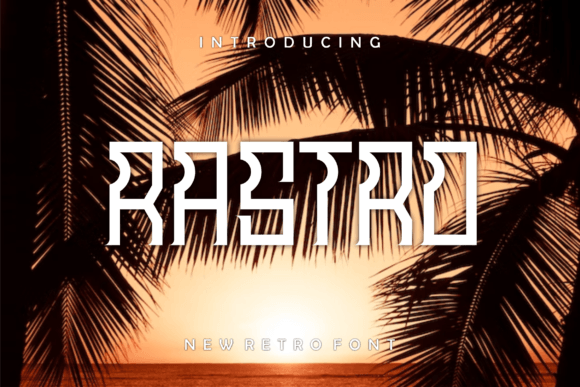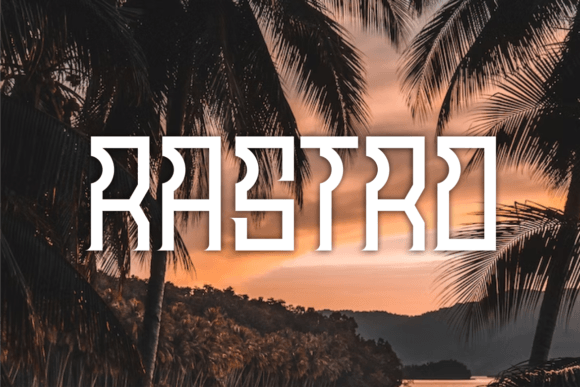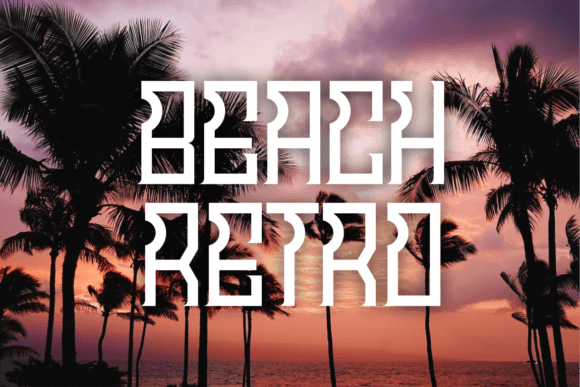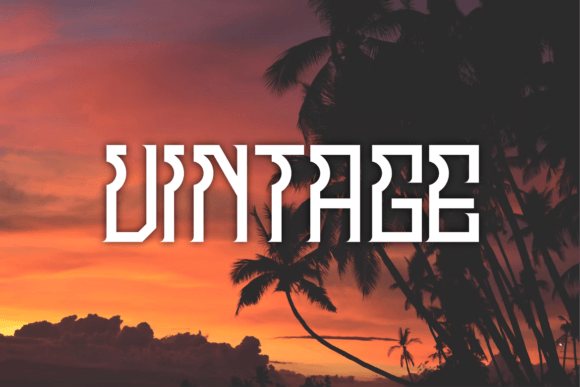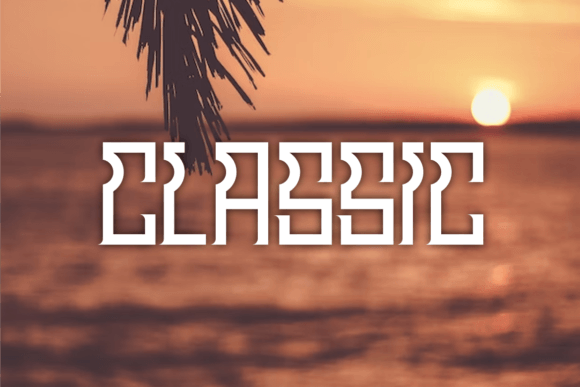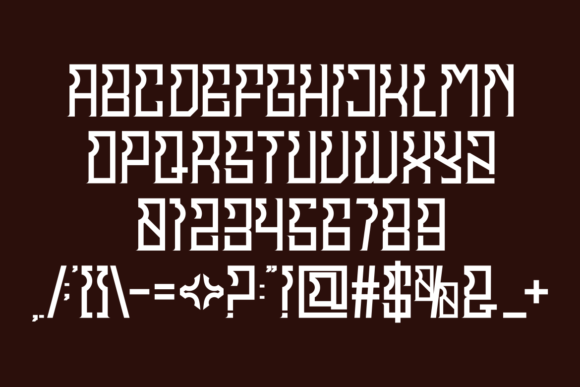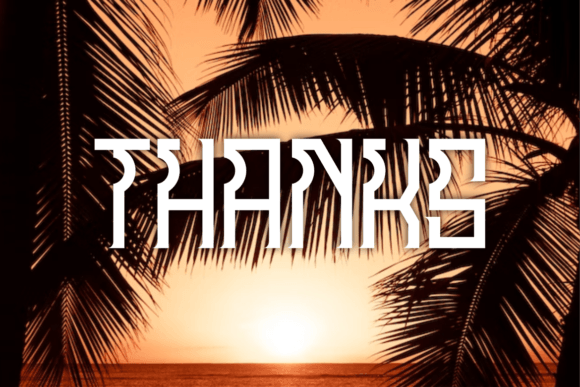
Rastro
Rastro: A Thin and Tall Slab Serif Font
Rastro is a thin and tall slab serif font that combines beautiful, classy, elegant, and modern design elements. This versatile typeface is perfect for various projects, from signatures and stationery to branding and packaging design.
Key Features of Rastro
• Thin Design: Offers elegant, lightweight letterforms.
• Tall Style: Features elongated vertical proportions.
• Modern Appeal: Brings contemporary sophistication.
• Versatile Application: Adapts well to numerous design contexts.
Best Uses for Rastro
Thanks to its versatile characteristics, Rastro works especially well for:
When using Rastro in your designs, keep these tips in mind:
• Try it for headlines or display text to showcase its thin style.
• Use different sizes to highlight its tall proportions.
• Pair with bolder fonts for contrast and hierarchy.
• Let its versatility enhance both traditional and contemporary projects.
To sum up, Rastro is an excellent choice for designers seeking a thin and tall slab serif font. Its versatility makes it perfect for a wide range of projects. Whether you’re creating wedding materials, designing logos, or developing branding packages, Rastro offers the perfect blend of contemporary style and elegant sophistication.
Furthermore, Rastro’s distinctive design allows it to shine in contexts where both elegance and modernity are key. For instance, from stationery to website headers, this font can elevate your projects with its refined style. Also, its thin yet tall appearance works particularly well in designs that aim to make a sophisticated impact.
In conclusion, Rastro truly captures the essence of modern elegance in slab serif typography. Its versatility across different applications shows how well it can serve various creative needs. Therefore, for those wanting to add a touch of refined sophistication to their work, Rastro can enhance any design with its distinctive style. Ultimately, it’s perfect for designers aiming to make an elegant, modern impact across a wide range of creative projects.